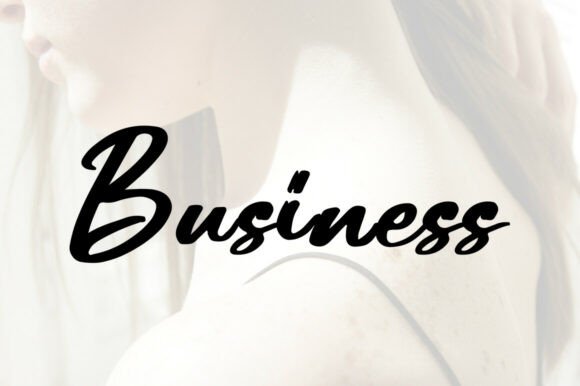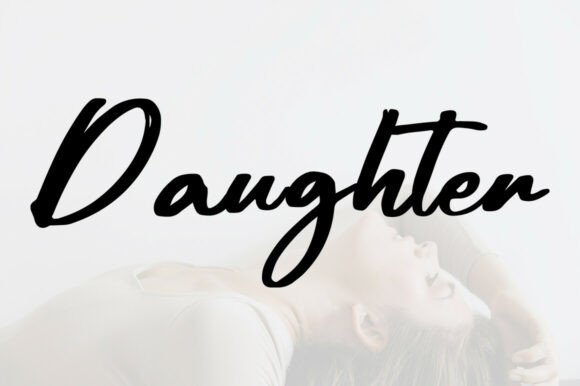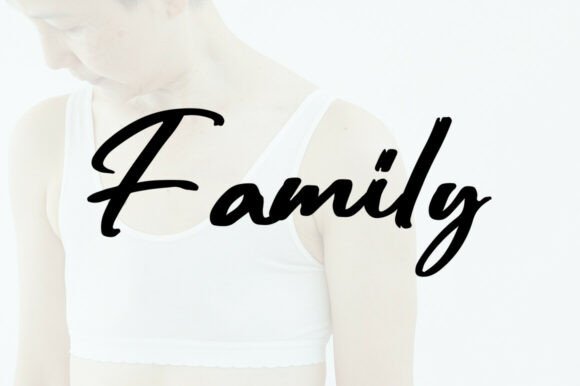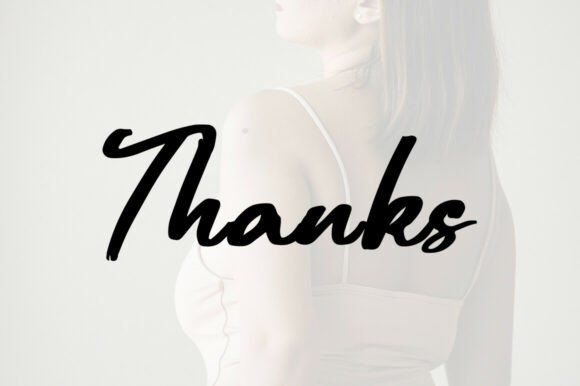
The Perfect Handwritten Touch: A Deep Dive into Funtime Font
I still remember the time I was working on a wedding invitation project, and my client specifically asked for a font that would make the invitation look elegant and sophisticated. I scoured through my font library, but nothing seemed quite right. That’s when I stumbled upon Funtime Font, and it instantly became the perfect solution. In this article, I’ll share my experience with Funtime Font, its features, and how to make the most of it in various design platforms.
An Honest Review of Funtime Font
What I Love About Funtime Font ✨
- ✅ Elegant and stylish handwritten design
- ✅ Perfect for wedding invitations, thank you cards, quotes, and greeting cards
- ✅ Works well for logos, business cards, and other designs that need a personal touch
While Funtime Font is an excellent choice for many design projects, there are a few things to keep in mind:
- 🤔 May not be the best choice for body text or long paragraphs, as it’s designed for headlines and titles
- ⚠️ Limited availability of stylistic alternates, which may limit its versatility
The Backstory of Funtime Font
Funtime Font was designed with the intention of creating a beautiful and elegant handwritten font that would add a personal touch to any design project. The designer aimed to create a font that would be perfect for wedding invitations, thank you cards, and other formal events, while also being versatile enough for use in a variety of creative projects.
Q: What is Funtime Font best used for?
A: Funtime Font is best used for designs that require a handwritten touch, such as wedding invitations, thank you cards, quotes, greeting cards, logos, and business cards.